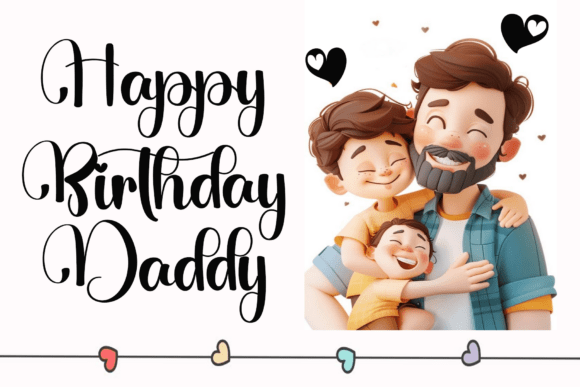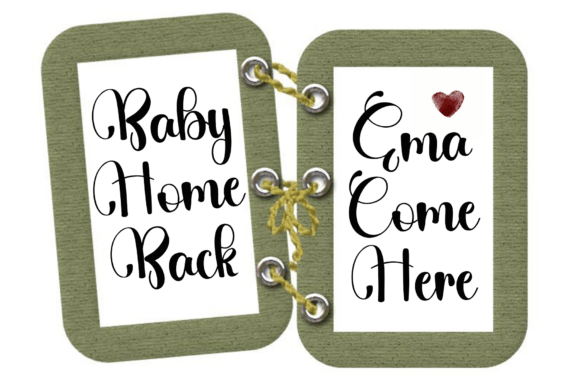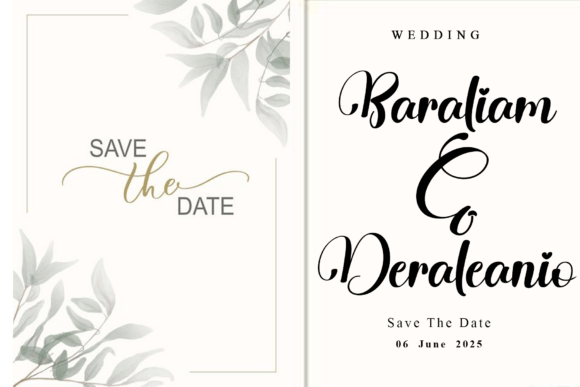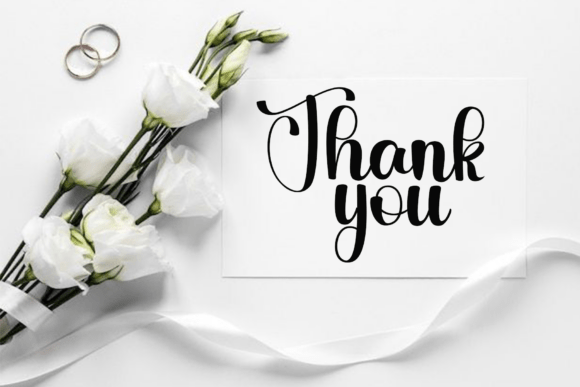
Capture the Whimsy with the Candy Gummy Font
Do you ever find yourself wandering through a vintage candy store, surrounded by jars of colorful sweets, and suddenly, your creative juices start flowing? For many designers, that’s exactly what happens when they stumble upon the perfect font. That’s what I experienced when I discovered the Candy Gummy Font – a stylish handwritten font with a contemporary atmosphere and impeccable form.
Designed to enhance the beauty of your projects, the Candy Gummy Font is a timeless classic calligraphy-inspired font that’s both balanced and varied. Whether you’re a graphic designer, a typographer, or a digital artist, this font is sure to add a touch of whimsy to your work. With its unique style, the Candy Gummy Font is a valuable addition to any designer’s toolkit.
Candy Gummy Font Key Features
- Unique Characteristics: The Candy Gummy Font features a playful, whimsical design with bold lines and vibrant colors, making it perfect for creating eye-catching and fun designs.
- Character Set: The font includes a comprehensive set of characters, including uppercase and lowercase letters, numbers, punctuation marks, and special characters.
Candy Gummy Font Review
When I first laid eyes on the Candy Gummy Font, I was immediately drawn to its playful and whimsical aesthetic. The font is a perfect blend of sweet and tangy, making it a great choice for any project that needs a touch of fun. ✨ The font’s versatility is one of its strongest points, as it can be used for a wide range of applications, from branding and marketing materials to digital products and packaging.
- The font’s bold and colorful personality shines through in its uppercase letters, making it perfect for headings and titles.
- The lowercase letters have a more subtle and delicate feel, making them suitable for body text and paragraphs.
- The font’s OpenType features allow for a wide range of creative possibilities, including ligatures and swashes.
While the Candy Gummy Font is a great choice for many projects, there are a few limitations to consider. ⚠️ The font may not be the best choice for formal or professional applications, as its playful nature may come across as unprofessional. Additionally, the font’s bold lines and bright colors may not be suitable for projects that require a more subtle or minimalist aesthetic.
Overall, I think the Candy Gummy Font is a fun and creative choice for any project that needs a touch of personality. While it may not be the best choice for every project, it’s definitely worth considering for any design that needs to stand out and make a statement.
Candy Gummy Font is ideal for:
- Children’s products and packaging
- Party and event invitations